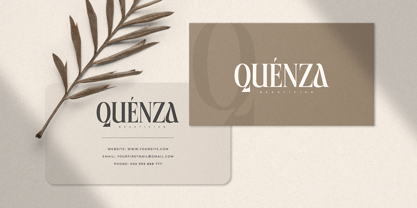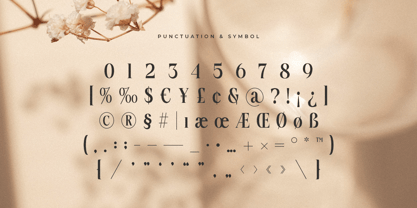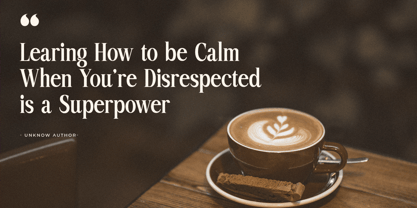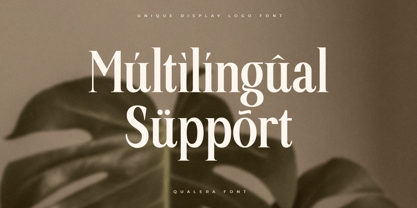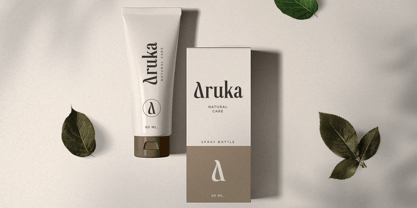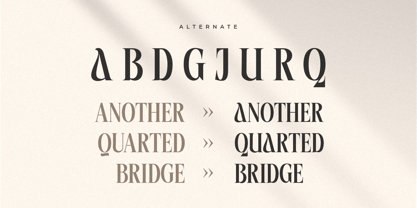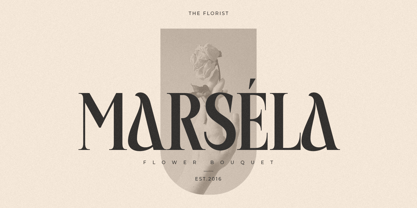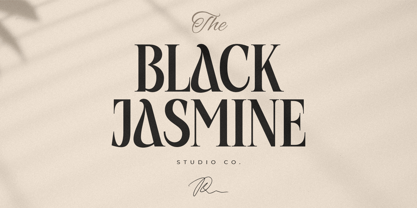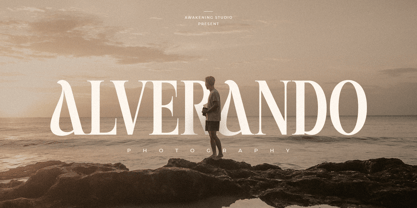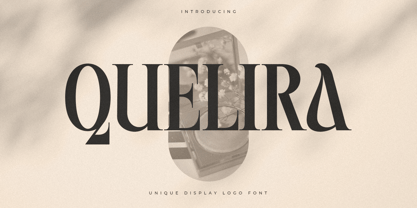
Quelira
by Sensatype Studio
The Quelira Font Family was designed by Zamroni Hamzah and published by Sensatype Studio. Quelira contains 1 styles. More about this family
Quilera is an Unique Display Logo Font is a Modern Display font for Luxury, Elegant, and Beauty Logo and Branding needs, with Cool style touch, font that you can combine to get any variations and unique shapes easily just in seconds with choose alternates of them. It is a serif display font with moderate contrast that perfect for branding projects, logo, wedding designs, social media posts, advertisements, product packaging, product designs, label, photography, watermark, invitation, stationery, and any projects, it makes with a high level of legibility.
Designers: Zamroni Hamzah
Foundry: Sensatype Studio